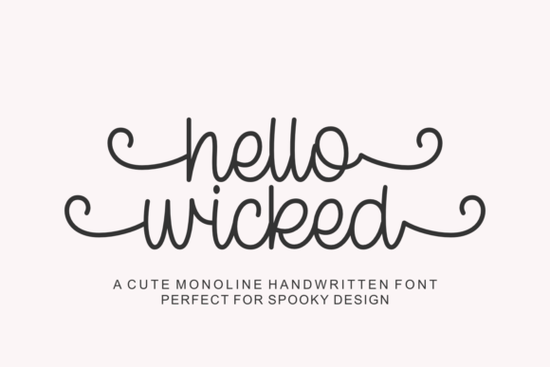
If you're working on Halloween-themed projects think greeting cards, party invites, printable decor, or even spooky merch for your print-on-demand shop you’ve probably searched for a font that’s playful but not cheesy, whimsical but still legible. That’s exactly where Hello Wicked Font comes in. It’s a handwritten-style typeface with just the right mix of charm and character to give your designs personality without veering into cartoonish territory.
Unlike rigid display fonts that feel stiff or overly dramatic, Hello Wicked leans into its hand-drawn quirks. The letterforms have subtle variations in stroke width and slight bounces in baseline alignment details that mimic real handwriting. This makes it ideal for projects where you want warmth and approachability, like kids’ Halloween crafts, boutique packaging, or seasonal social media graphics.
What makes Hello Wicked stand out from other Halloween fonts?
Many seasonal fonts rely on drips, cracks, or exaggerated serifs to signal “spooky.” Hello Wicked takes a different route: it’s more mischievous than menacing. Think of it as the font version of a friendly ghost waving from a pumpkin patch not scary, just delightfully odd.
A big part of its flexibility comes from PUA (Private Use Area) encodings. These let you access alternate characters, swashes, and ligatures directly through design software like Adobe Illustrator, Canva, or Affinity Designer no need for complex workarounds. For example, typing “hello” might automatically swap in a curled-tail ‘l’ or a looped ‘o’ depending on context, giving each word a custom feel.
Who should use this font?
This font shines for:
- Print-on-demand sellers creating mugs, T-shirts, or tote bags with lighthearted Halloween slogans (“Boo-tiful Day,” “Witch Please,” etc.).
- Crafters and teachers making classroom decorations, treat tags, or DIY party kits.
- Small businesses designing limited-edition seasonal labels or Instagram stories.
- Digital designers building themed templates for Etsy or Creative Market.
It’s worth noting that while Hello Wicked leans festive, it’s not so niche that it’s unusable outside October. Its handwritten vibe works well for any project needing a touch of offbeat charm think birthday invites with a “quirky bestie” theme or café chalkboard signs with punny specials.
How does it pair with other fonts?
Hello Wicked has enough personality that it often works best as a headline or accent font. For body text or supporting copy, pair it with clean, neutral sans-serifs like Montserrat, Lato, or even a simple typewriter style.
If you enjoy mixing script fonts for layered designs, consider combining it with complementary styles such as Simple Preppy for contrast, or Monday Outline if you want to add dimension with outlines. For non-Halloween projects, Beautiful Garden offers floral elegance, while Barbie Valentines Outline brings bubbly romance both show how versatile handwritten scripts can be across seasons.
Tips for using Hello Wicked effectively
Because of its irregular baseline and varying heights, avoid using it in all caps or at very small sizes it’s meant to be seen and savored. Also, give it breathing room; tight line spacing can make the playful bounces feel cluttered.
If you’re new to PUA-encoded fonts, take five minutes to explore your software’s glyph panel. You’ll likely find hidden gems like end-swashes for capital letters or contextual alternates that activate only between certain characters. These tiny details are what turn a basic phrase into something that feels hand-lettered.
And remember: less is more. One or two words in Hello Wicked often carry more impact than a full paragraph. Let it highlight your key message “Trick or Treat,” “Spooky Cute,” or even just “Hello!” while cleaner fonts handle the rest.
Hello Wicked is available through Creative Fabrica, which frequently offers subscription deals that include thousands of fonts, graphics, and templates. If you already use their platform for resources like other script fonts, adding this one to your library is seamless.